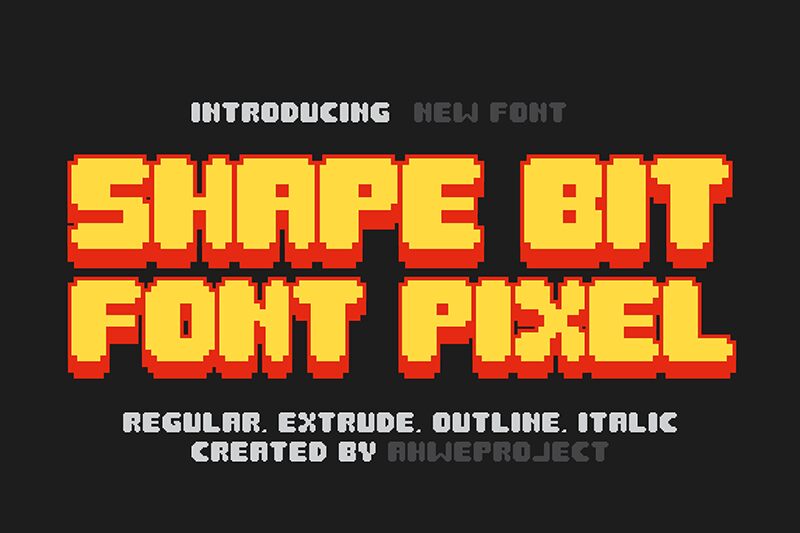
Shape Bit font by Ahwe Project is a completely free bold bitmap font that is blocky, geometric, expanded, and pixelated in appearance. With its size, noticeable characters, and tech-oriented overall style, it reveals its digital inspiration in every letterform of the expanded family typeface.
Use Shape Bit for website design projects, apps, posters, video gaming designs, marketing campaigns with futuristic concepts and visuals.